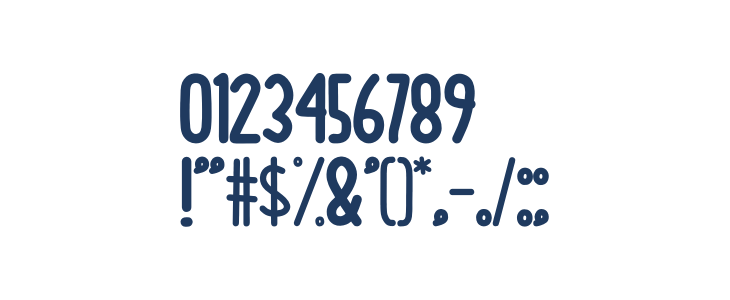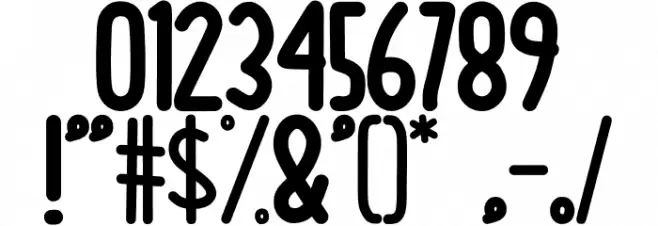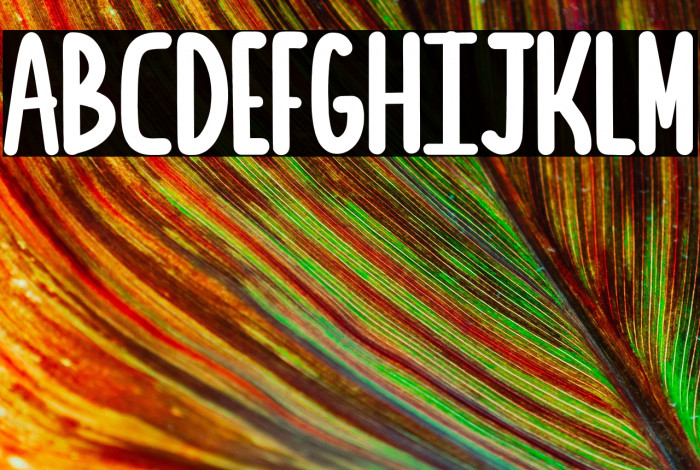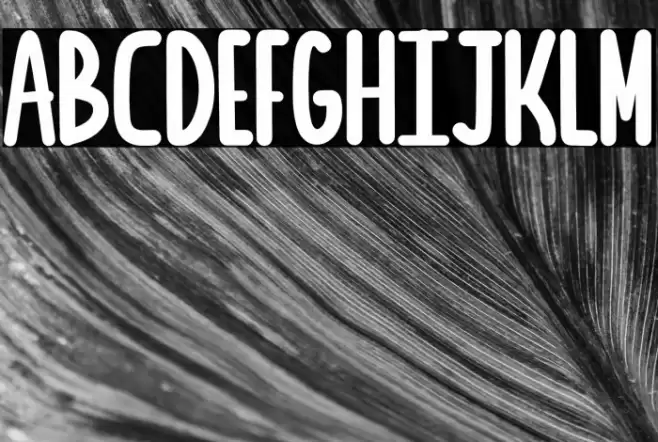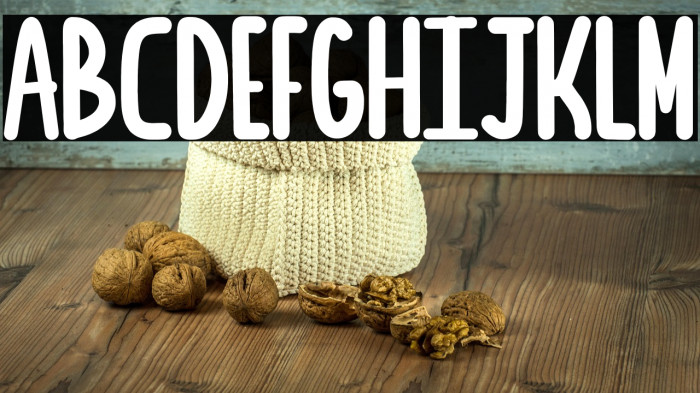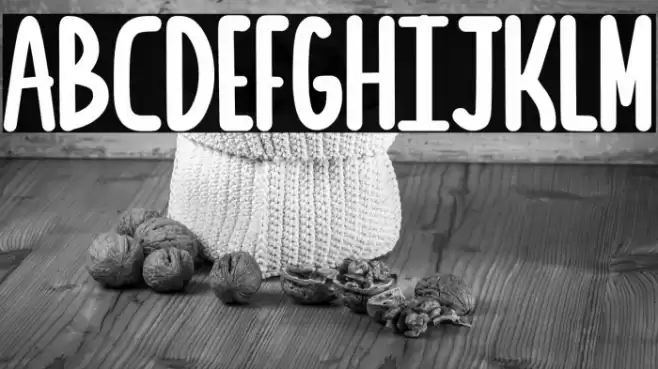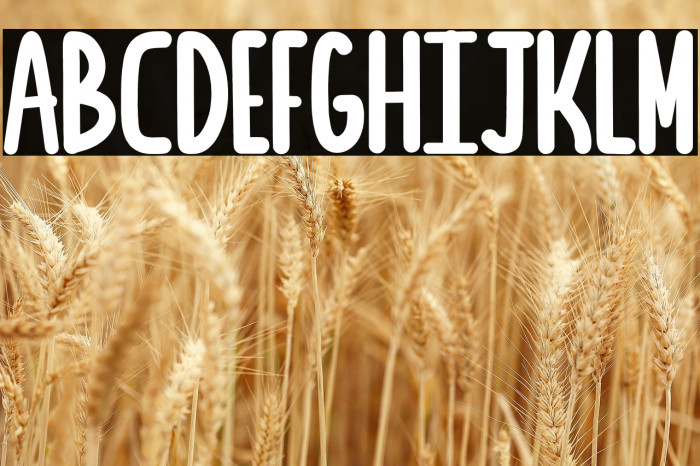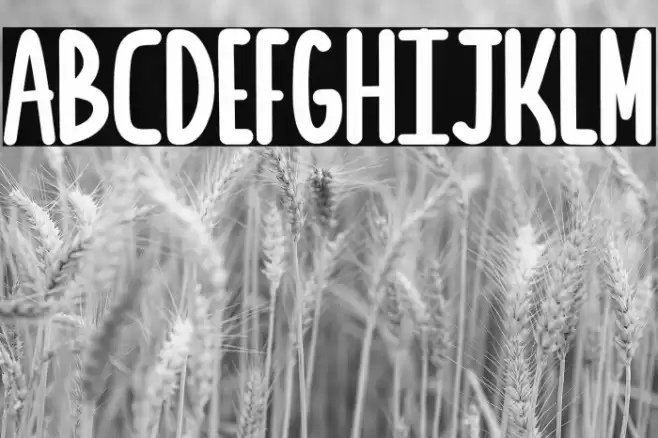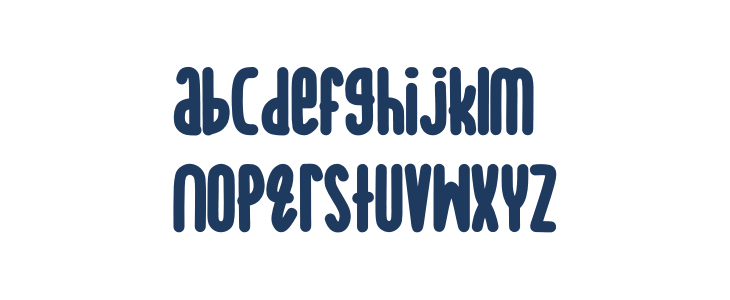
Sea Salt Font
Sea Salt Description
This font features a playful and bold design with rounded edges and a slightly condensed form. The characters are uniformly thick, giving it a strong presence while maintaining a friendly and approachable appearance. The uppercase and lowercase letters share a consistent style, with the lowercase letters slightly smaller in height. The numbers are clear and easy to read, matching the overall style of the alphabet. Special characters are included, maintaining the same playful and bold aesthetic. This font is ideal for projects that require a fun and engaging look.